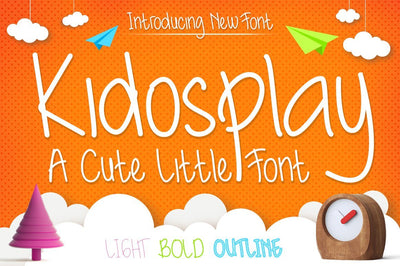
Kidosplay - Playful Font Family
Introducing Kidosplay Font – a cute little font which comes in 3 styles: light, bold, and outlined. It has a playful feel and will give your design a fun touch.
Kidosplay Font would be perfect for logos & branding, photography, watermark, social media posts, advertisements, invitation, product designs, label, stationery, wedding designs, product packaging, special events or anything that need handwriting taste.
- 3 Style Font: Light, Bold, Outline